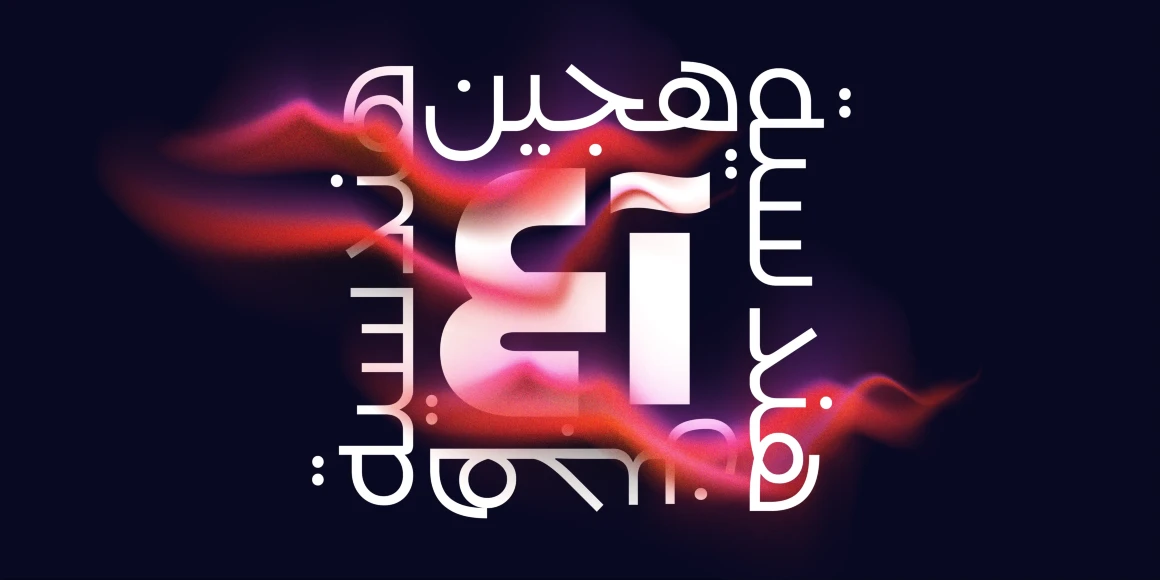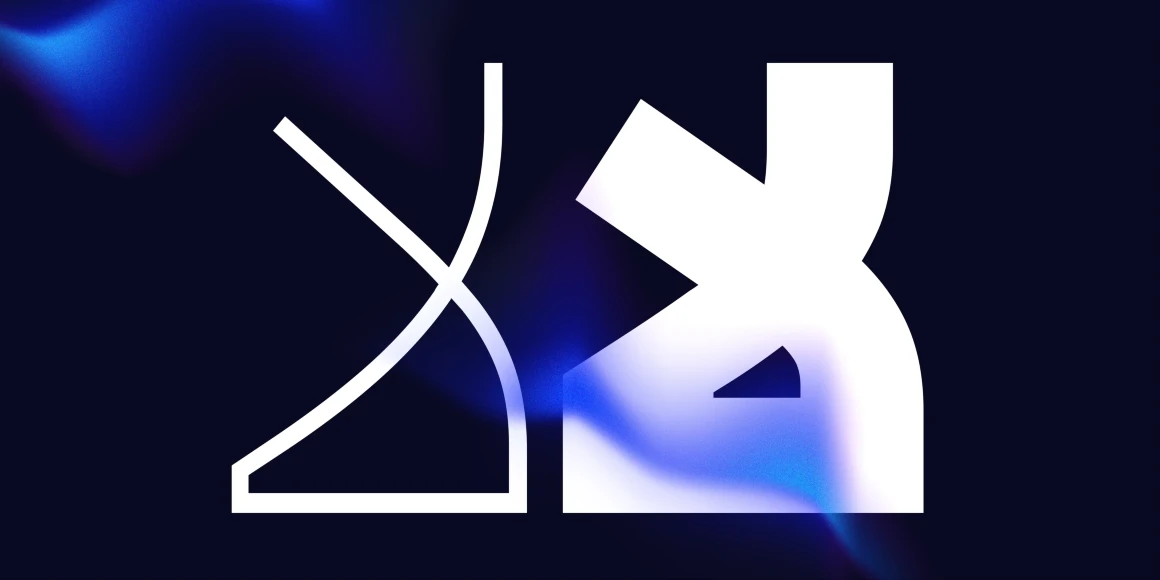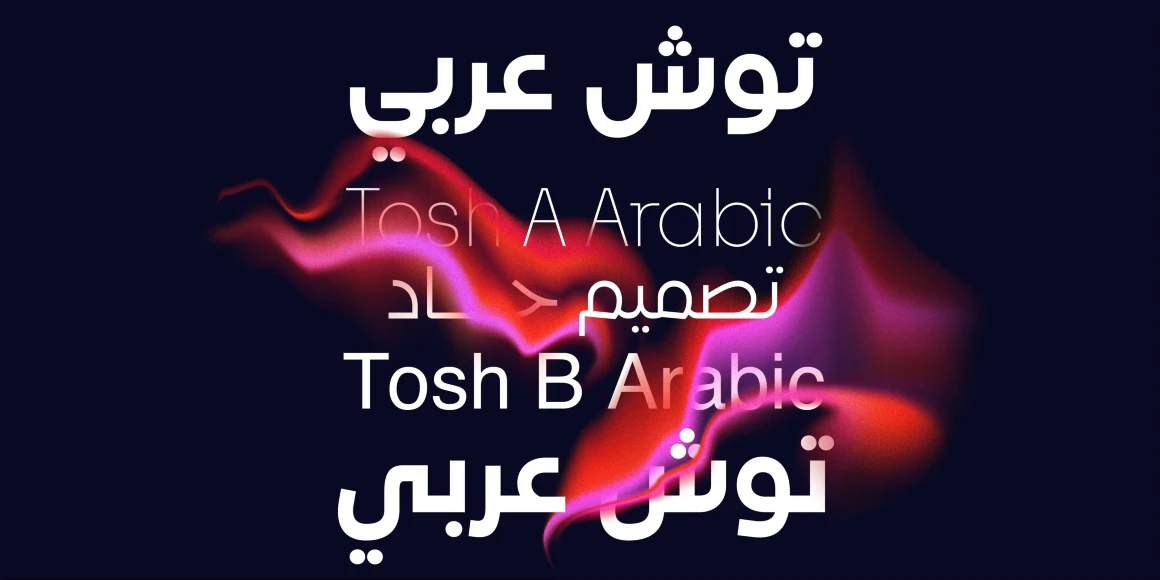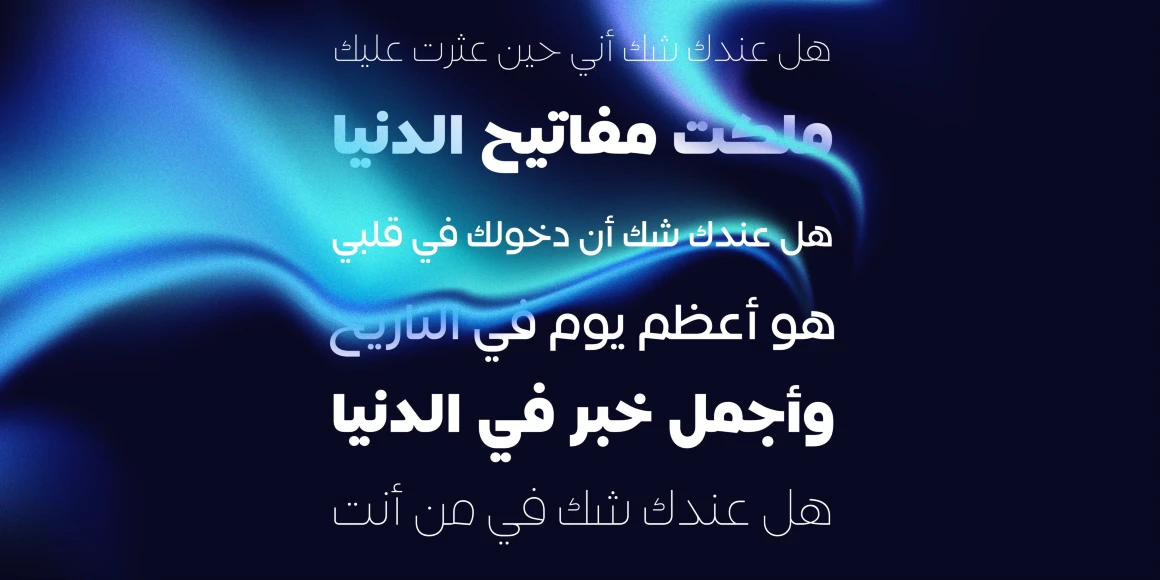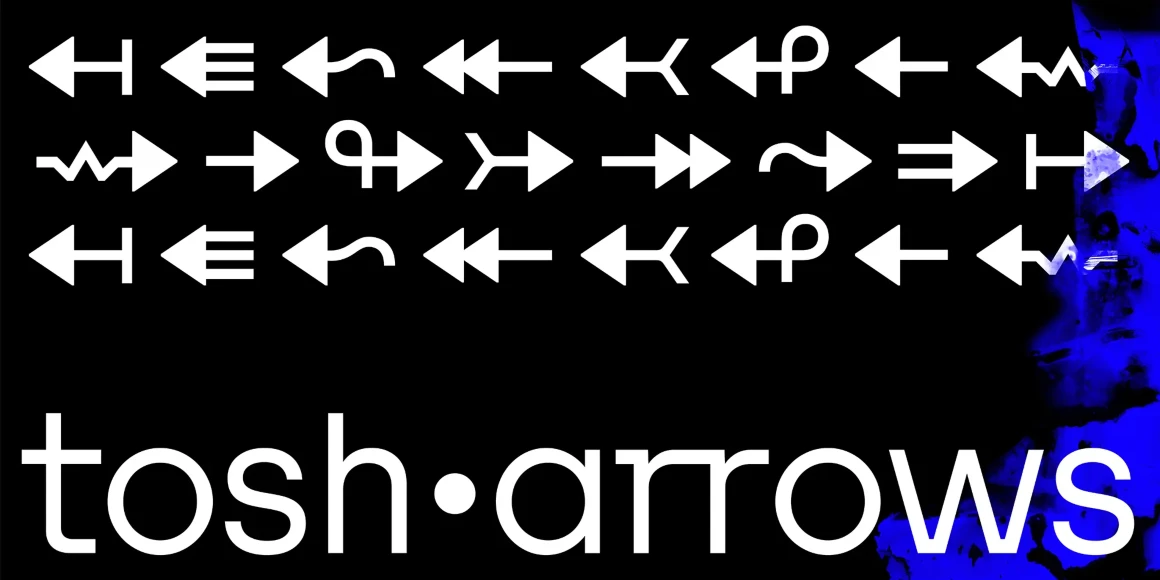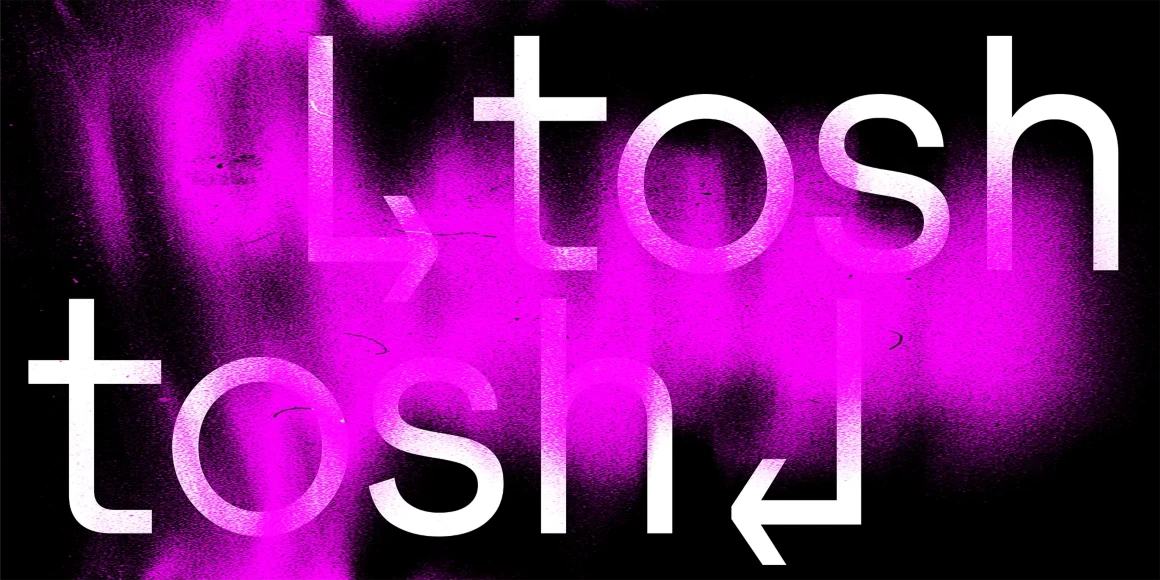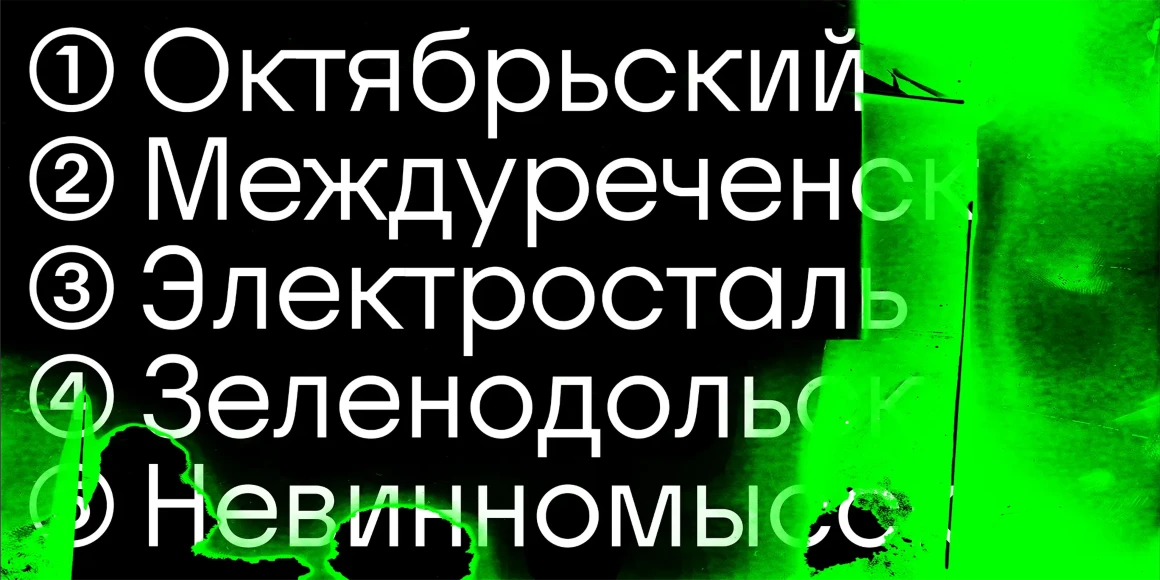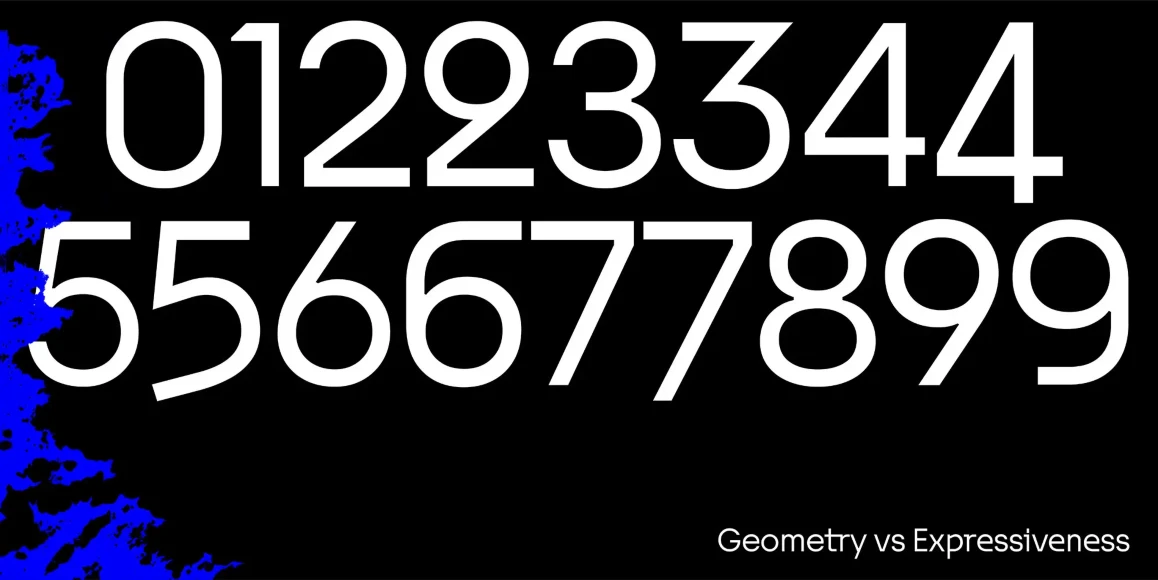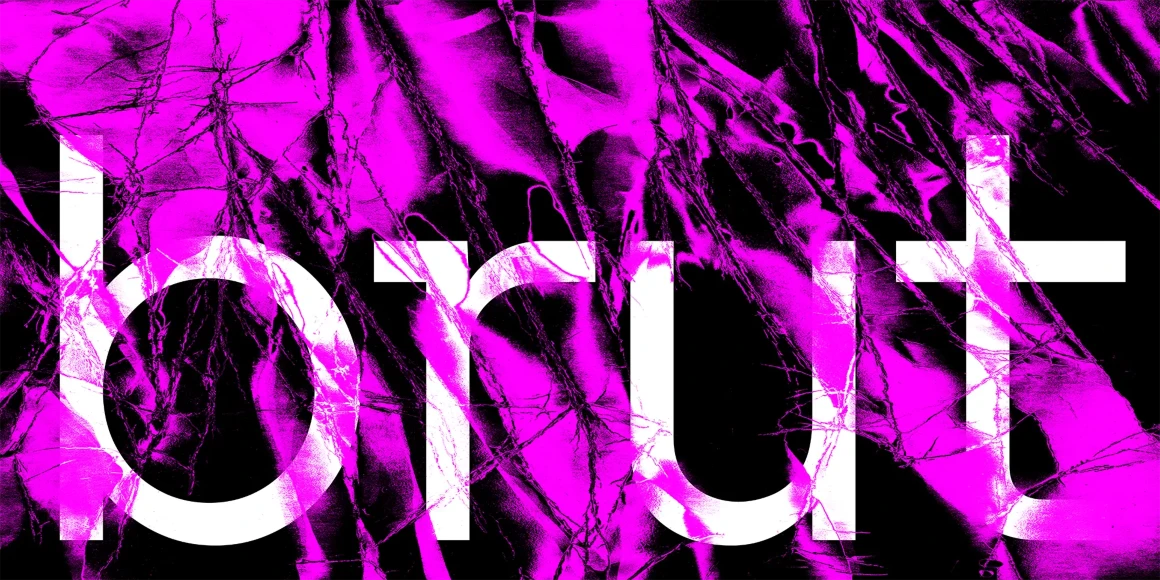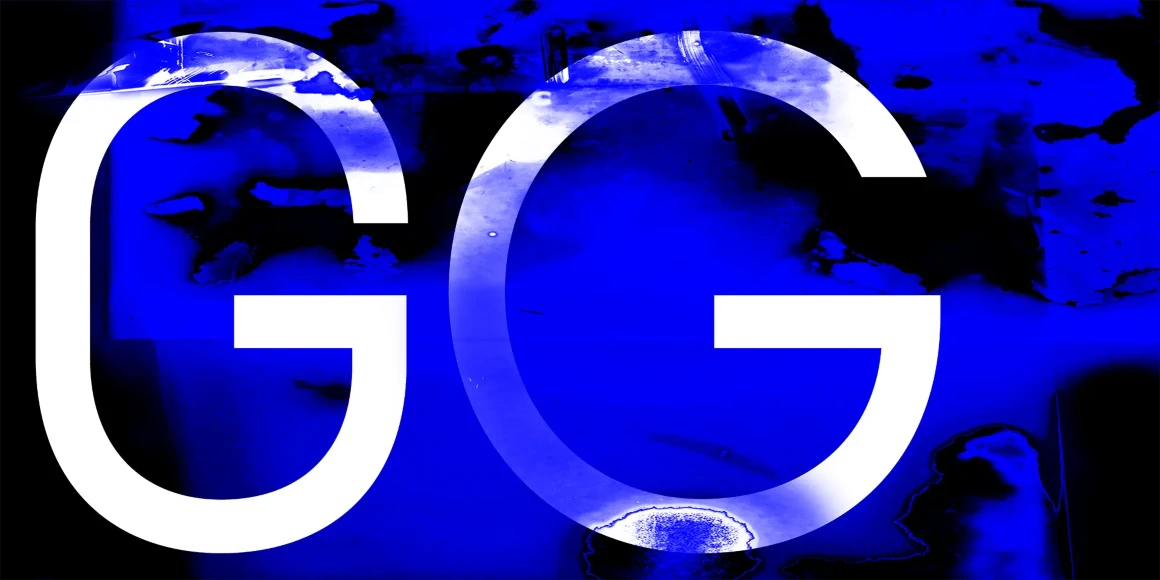
Tosh A
By Jérémie Hornus, Ilya Naumoff, Benjamin Blaess, Keya Vadgama, Gaëtan Baehr & Hirbod Lotfian
Tosh is a sans serif font family blending geometric forms with an organic spirit, expressed through two families: Tosh A and Tosh B. Tosh A leans geometric, while Tosh B takes a more constructed approach. Both are unmistakably modern. Tosh A and B spans Thin to Black, or variable fonts, and supports Latin, Cyrillic, and Arabic. This range allows designers to maintain a unified visual language across scripts. It also provides the expressive detail needed for contemporary design.